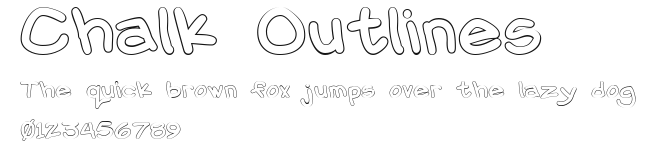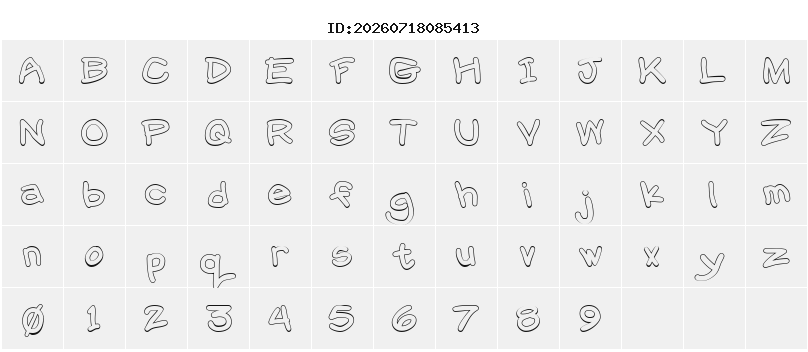
Chalk Outlines Preview
• Font Name: Chalk Outlines
• Font ID: Macromedia Fontographer 4.1.5 Chalk Outlines
• Full Font Name: Chalk Outlines
• Version: Macromedia Fontographer 4.1.5 9/9/02
• PostScript Name: ChalkOutlines
• Character Count: 183
About Chalk Outlines.ttf
Chalk Outlines.ttf is a modern, elegant sans-serif font designed for ultimate readability and visual harmony. Perfect for branding, headlines, web design, and print materials.